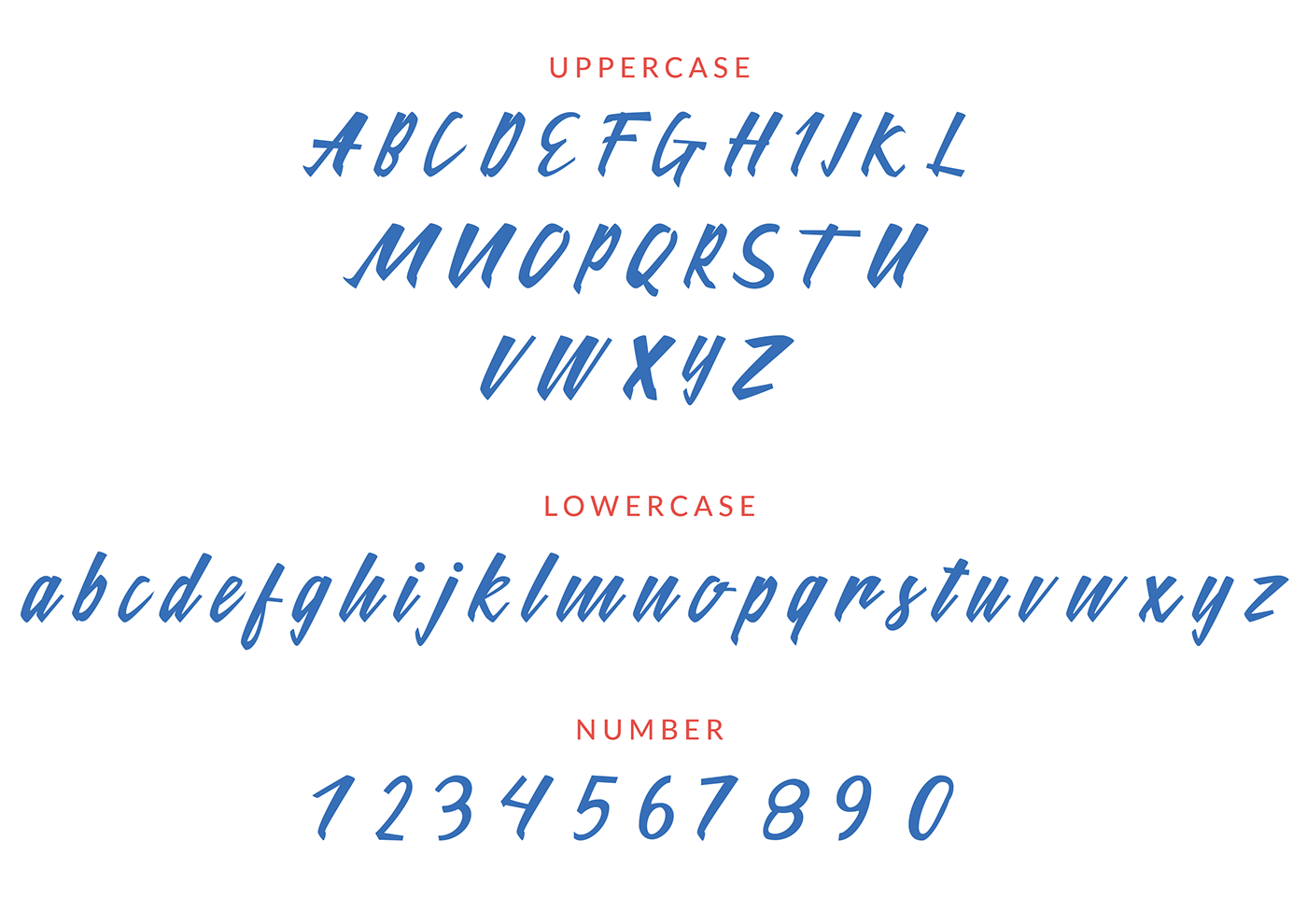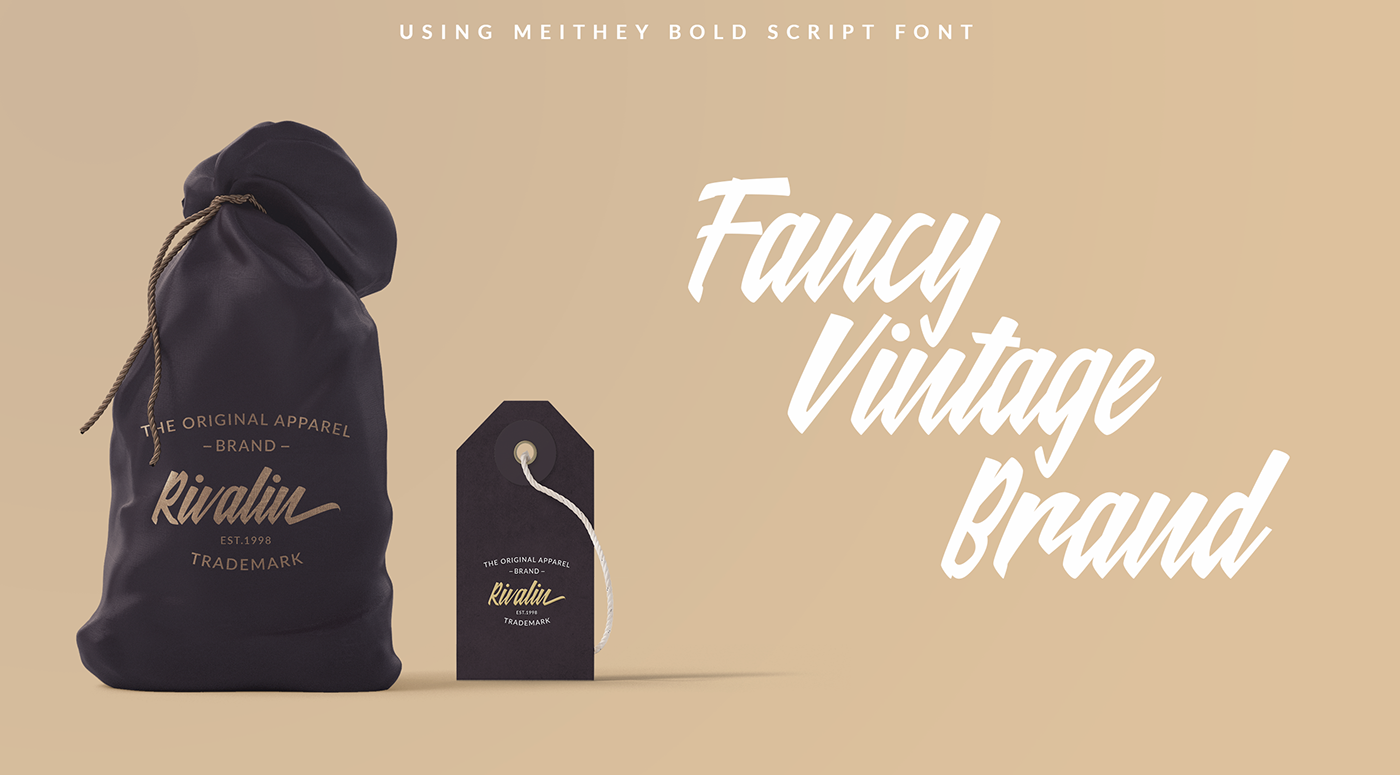
Meithey Bold Script Font
Hello friends! I was so excited to see this typeface, it was very impressive with the calligraphy design. Introducing Meithey Bold Script Font! Meithey designed and shared by Wahyu Ichsan. Meithey Bold Font is a modern font with more featured and made with love. Meithey typeface include Uppercase, Lowercase, Number, Stylistics set to combine your design. This one is good for T-shirt, logotype, Branding, print products, and many more.